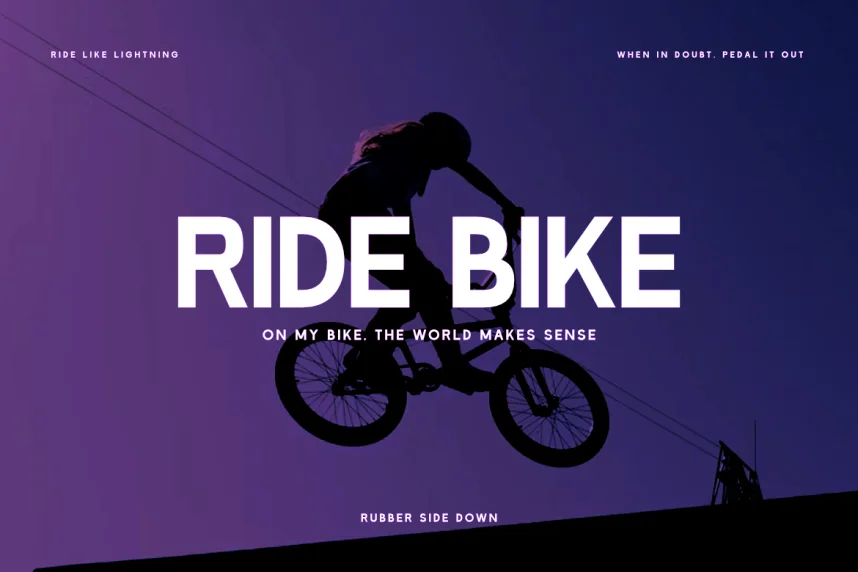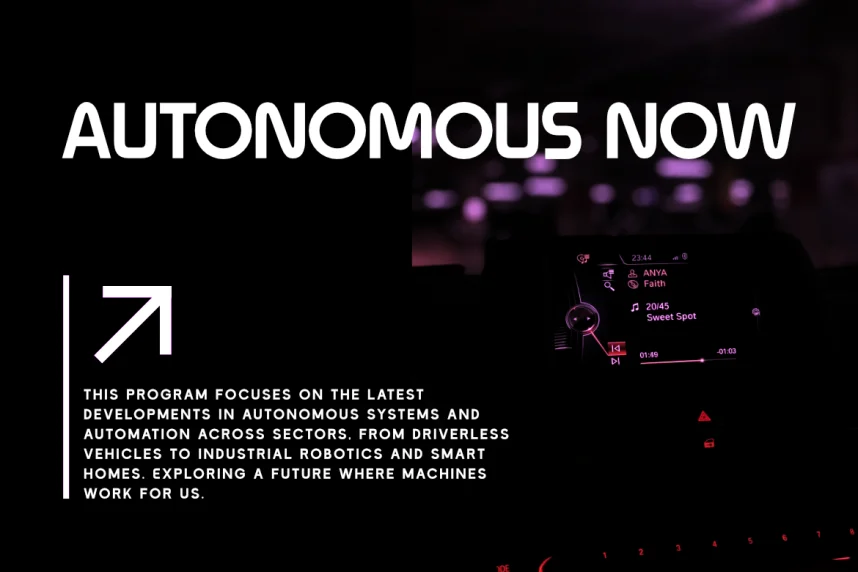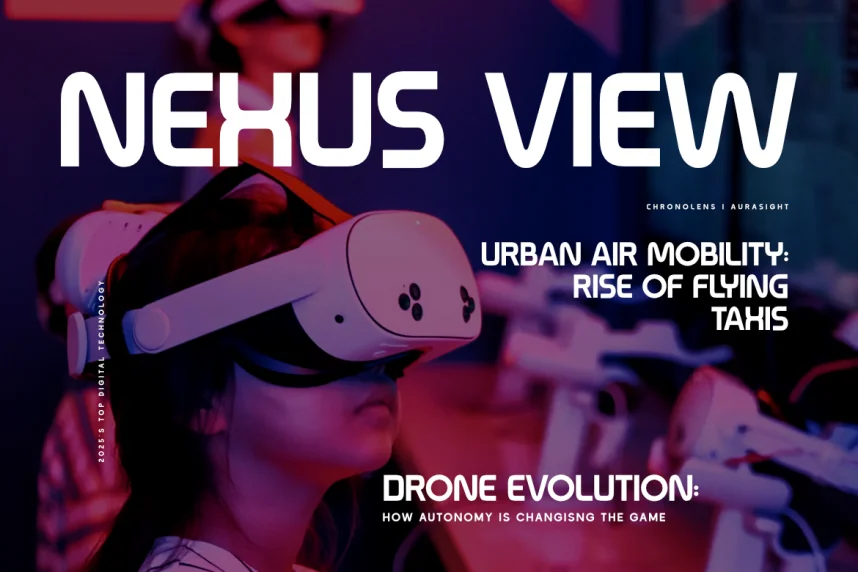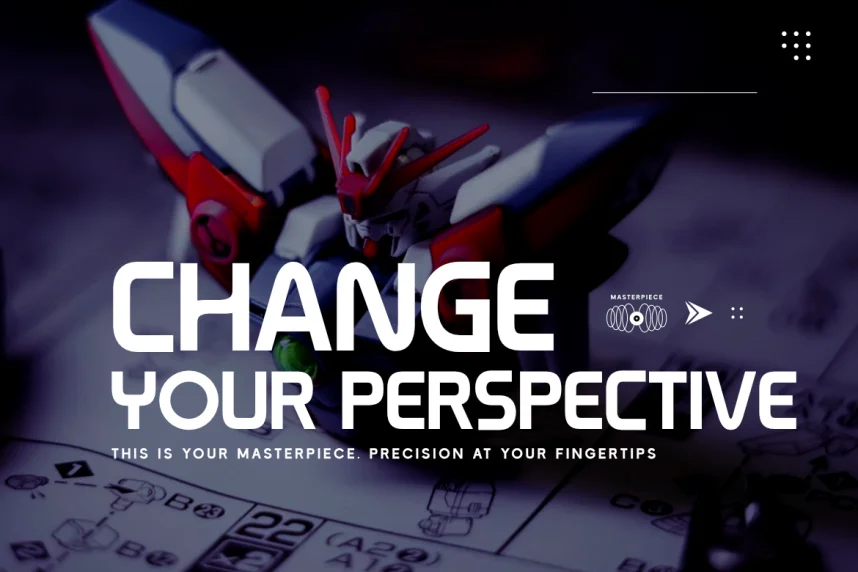
Momentum Font is a dynamic sans-serif typeface designed for modern digital use. The font’s sleek, straight lines and slight curves create a sense of movement and forward motion, making it perfect for tech branding, user interfaces, and advertising materials.